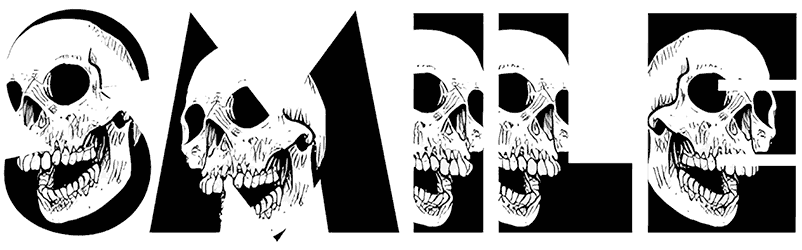
Smile Font
Want to be weird and different? Well, you have an enjoyable suggestion on the table here, Smile. Although this skull font does not include lowercase, numbers, and punctuation, it can still do its job of shocking and dazzling others! Smile is suitable for many creative designs such as flyers, illustrations, stickers, and much more. Have a feast on scaring!
THREE layered fonts.